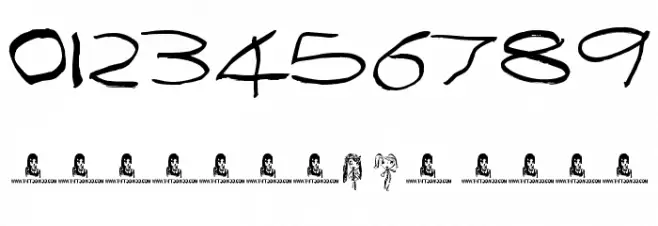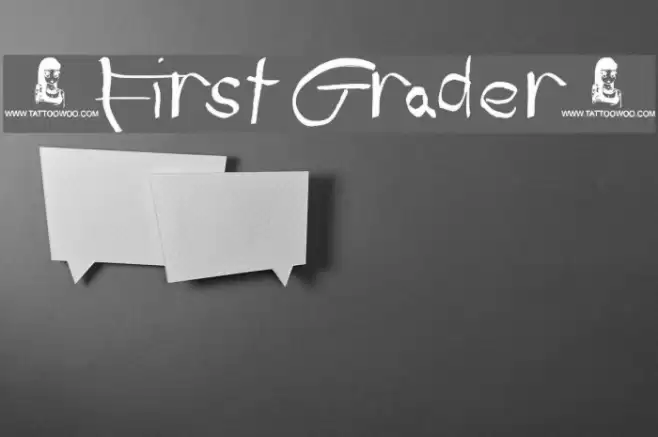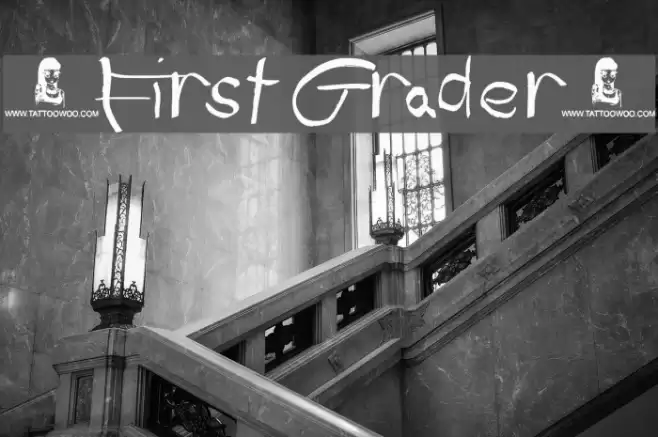
[First Grader] Font
[First Grader] Description
This font exudes a playful and whimsical charm, reminiscent of a child's handwriting. The characters are uneven and slightly irregular, giving it an authentic, hand-drawn feel. The strokes vary in thickness, adding a dynamic and lively appearance. The uppercase and lowercase letters maintain a consistent style, with quirky curves and angles that enhance its informal nature. Numbers and special characters follow the same playful design, making it suitable for creative and fun projects. The overall look is casual and approachable, perfect for designs that aim to convey a sense of youthfulness and spontaneity.
A playful, hand-drawn font with a whimsical and informal style from Uncategorized fonts.
- Proposed Projects: Ideal for children's books, playful branding, educational materials, and creative invitations.
- Overall Style: Playful, Whimsical
- Use Case: Headlines, Creative projects, Informal designs